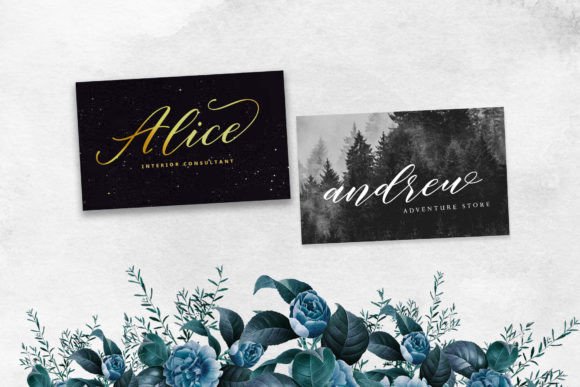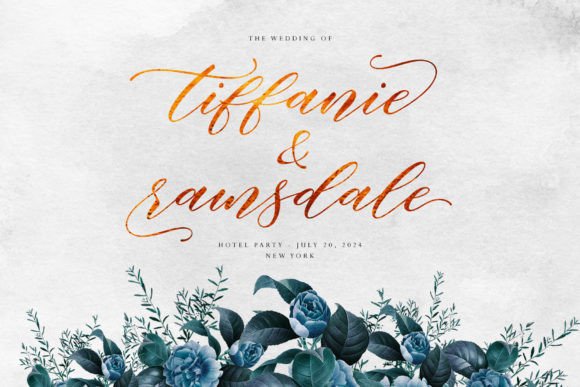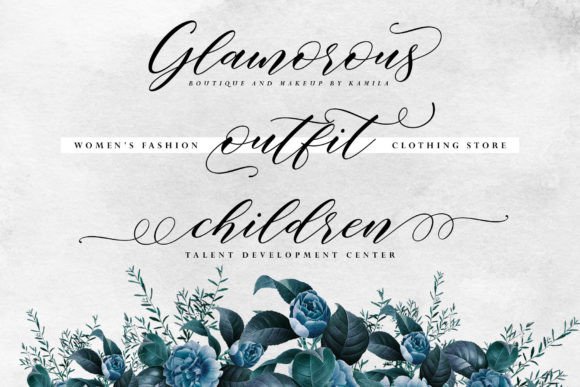
Introduction to Matilha Font
This is a Modern Calligraphy font with an elegant, stylish, soft, and neat italic style.
With a style like this, this font is definitely suitable for various design projects This font is very suitable for design needs such as Cricut design, comics, logos, branding projects, homeware designs, product packaging, mugs, quotes, posters, shopping bags, logos, t-shirts, book covers, name cards, invitation cards, greeting cards, and all your other lovely projects.
Key Features of Matilha Font
Why Choose Matilha Font?
Matilha Font offers exceptional quality and versatility, making it a valuable addition to your design toolkit. Whether you’re creating for personal projects or commercial use, Matilha Font delivers professional results.